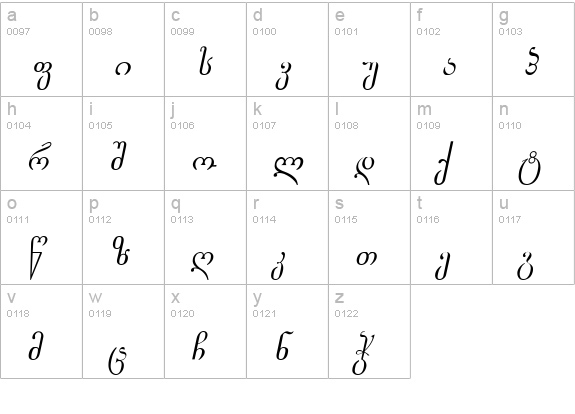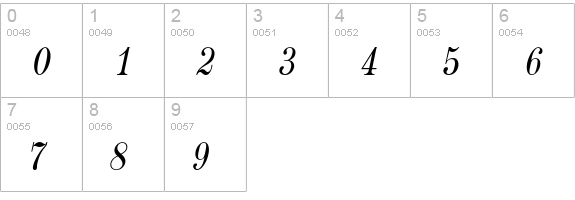
Gogebashvili-ITV Italic Font Details
Gogebashvili-ITV Italic is a distinctive, italic variant in the Gogebashvili typeface family \xE2\x80\x94 well suited to design and typography projects.
Gogebashvili-ITV Italic font is a sleek and modern typeface that exudes sophistication and elegance. Its slanted design adds a touch of dynamism to any text, making it perfect for conveying a sense of movement and style. The italicized characters have a unique flair that sets them apart from traditional fonts, making Gogebashvili-ITV Italic a standout choice for designers looking to make a statement. This font is not only visually striking but also incredibly versatile, suitable for a wide range of design projects including branding, editorial design, and advertising. Its clean lines and balanced proportions ensure readability while still maintaining a sense of personality and charm. The best part? Gogebashvili-ITV Italic font is available for free download at FontsMarket.com, making it accessible to designers and creatives looking to add a touch of sophistication to their projects without breaking the bank. Don't miss out on this stylish and versatile font that is sure to elevate your designs to the next level.